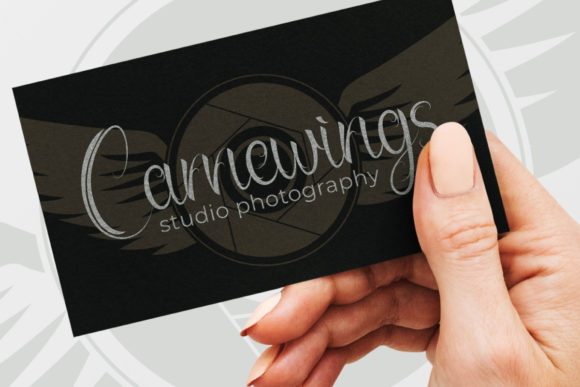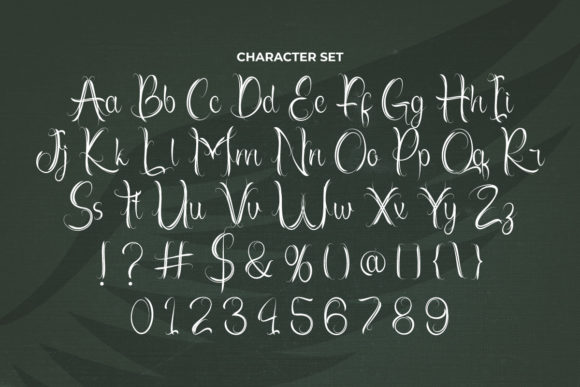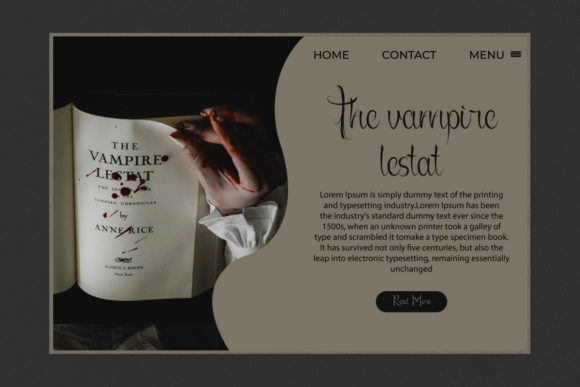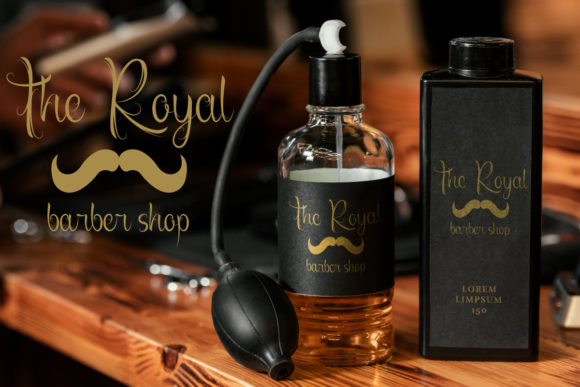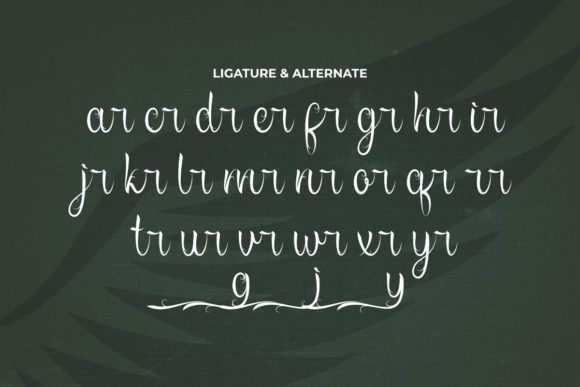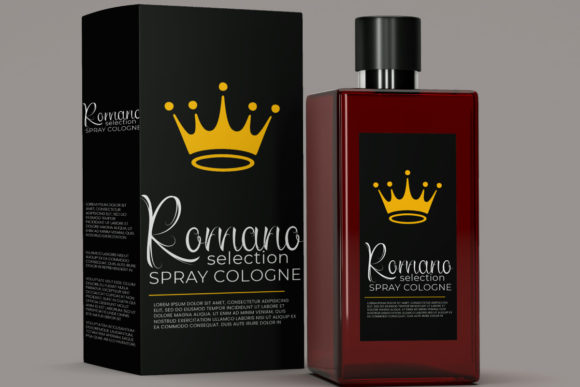
The Elusive Perfect Font: My Encounter with Greenwings
I’ll never forget the time I was working on a wedding invitation project, and my client asked for a font that was “elegant, modern, and classy.” I scoured the internet, tried out countless fonts, but nothing seemed to fit the bill. That was until I stumbled upon Greenwings Font. ✨
Greenwings is a beautiful and refined script font that has a classy, elegant, and modern look that can be used for logos, branding, invitations, stationery, wedding designs, social media posts, and much more! It’s PUA encoded, which means you can access all glyphs and swashes with ease.
An Honest Review of Greenwings Font
What I Love About Greenwings
- ✨ Elegant and refined script font perfect for high-end designs
- 💫 Modern and classy look that’s perfect for weddings, branding, and more
- 🎨 Highly versatile and can be used for a variety of design projects
While Greenwings is an amazing font, there are a few things to keep in mind. 🤔
- ⚠️ Some users may find the font a bit too ornate for certain projects
- ⚠️ May not be suitable for body text due to its script nature
The Backstory of Greenwings
Greenwings Font was designed with the intention of creating a elegant and refined script font that’s perfect for high-end designs. The designer wanted to create a font that was both modern and classy, with a unique feel that’s hard to find in other fonts.
Q: What is PUA encoding?
A: PUA (Private Use Area) encoding is a way of encoding fonts that allows for easy access to glyphs and swashes. This means that you can access all the special characters and flourishes in Greenwings Font with ease.
Q: Is Greenwings suitable for body text?
A: While Greenwings is a beautiful font, it’s not recommended for body text due to its script nature. It’s best used for headings, titles, and other display text.